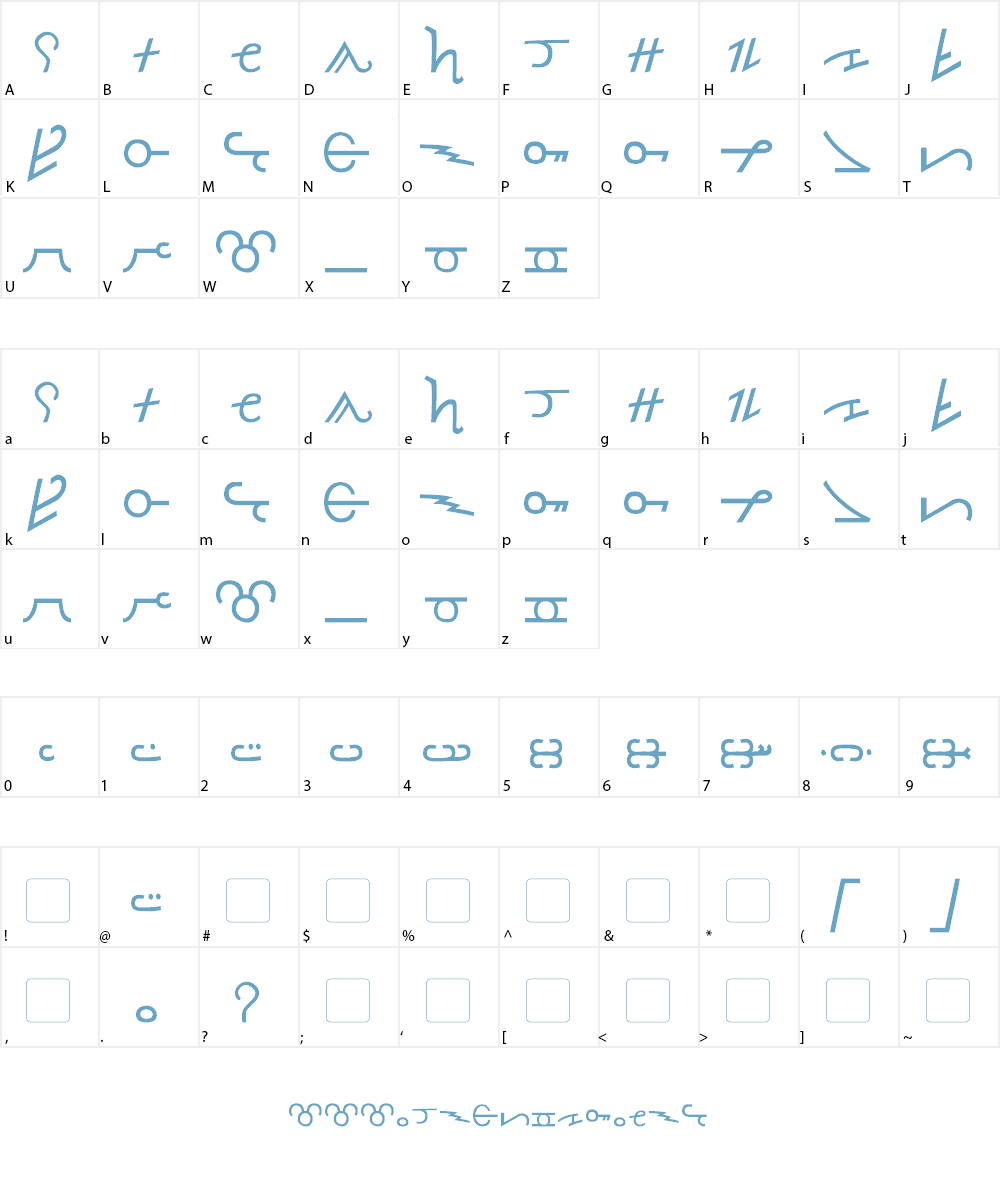
Old Thorass is based on the fantasy commoner script found in TSR’s Forgotten Realms (Second Edition). It is a very artistic, flowing set of simple runes, somewhat reminiscent of early cursive script. Includes all official glyphs.
Note, this script is now de-canonized and replaced with Thorass.